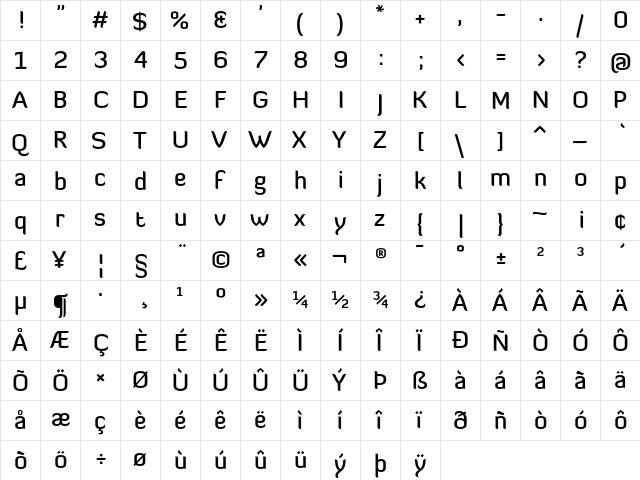
Diavlo SemiBold
| Foundry | Jos Buivenga |
| Designer | Jos Buivenga |
Design Context for Diavlo Typeface
Diavlo offers clean, dependable letterforms without strong stylistic allegiance, making it a practical choice for designers who need flexibility. Its bold stroke weight gives it real presence on the page.